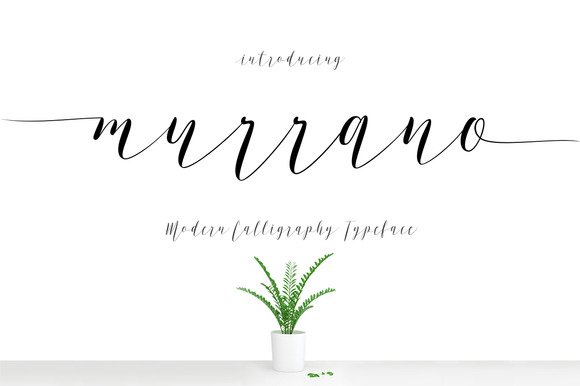
Murrano Script Font
Introducing Murrano – a modern luxe signature script designed for all kinds of stylish projects such as branding, logos, watermarks, quotes, Instagram stories, invitations, editorial, blogging and stationery. With modern script style this font will perfect for many different project ex: quotes, blog header, poster, wedding, branding, logo, fashion, apparel, letter, invitation, stationery, etc.
Murrano Script have 320+ glyphs and 130 alternate characters. including initial and terminal letters, ligatures, and multiple language support.